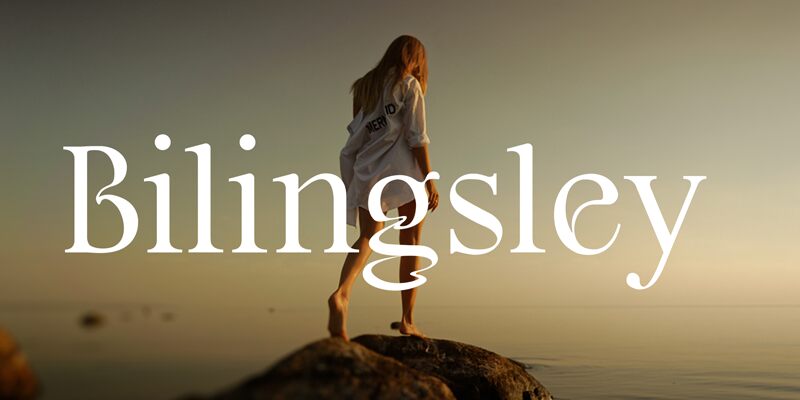
MGN Goddess, crafted by Studio Morgana.id, exudes a captivating blend of elegance and modernity. Its unique, whimsical curves paired with clean lines create a striking visual impact that captures attention effortlessly. This display font's distinctive character makes it perfect for high-impact designs where a touch of sophistication is paramount.
Whether gracing the cover of an upscale magazine, enhancing the allure of branding materials, or adding a flair to invitations and posters, MGN Goddess proves versatile and captivating. Its exquisite balance ensures readability while maintaining an artistic edge that distinguishes any project. Embrace MGN Goddess to elevate your designs with its alluring charm and sophisticated grace.